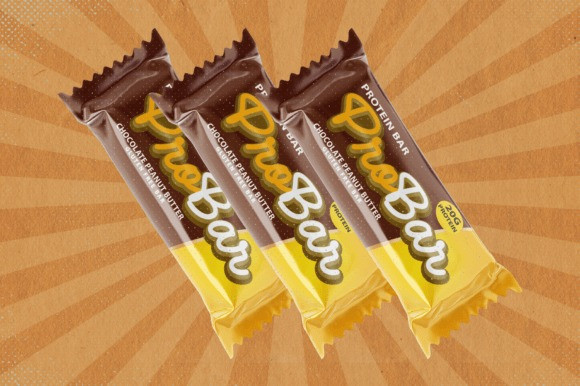
Milky Fruty Font
Milky Fruty Font! A monoline script font. Comes with two styles, regular and rounded. MilkyFruty font is suitable for branding, logotype, apparel, T-shirt, Hoodie, product packaging, quotes, flyer, poster, book cover, advertising, etc.